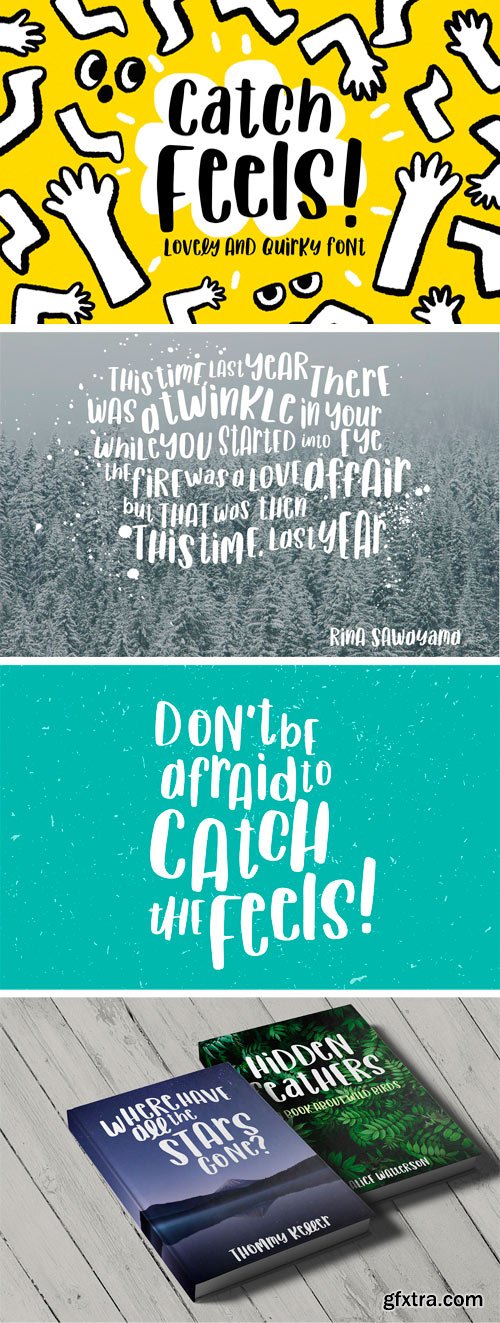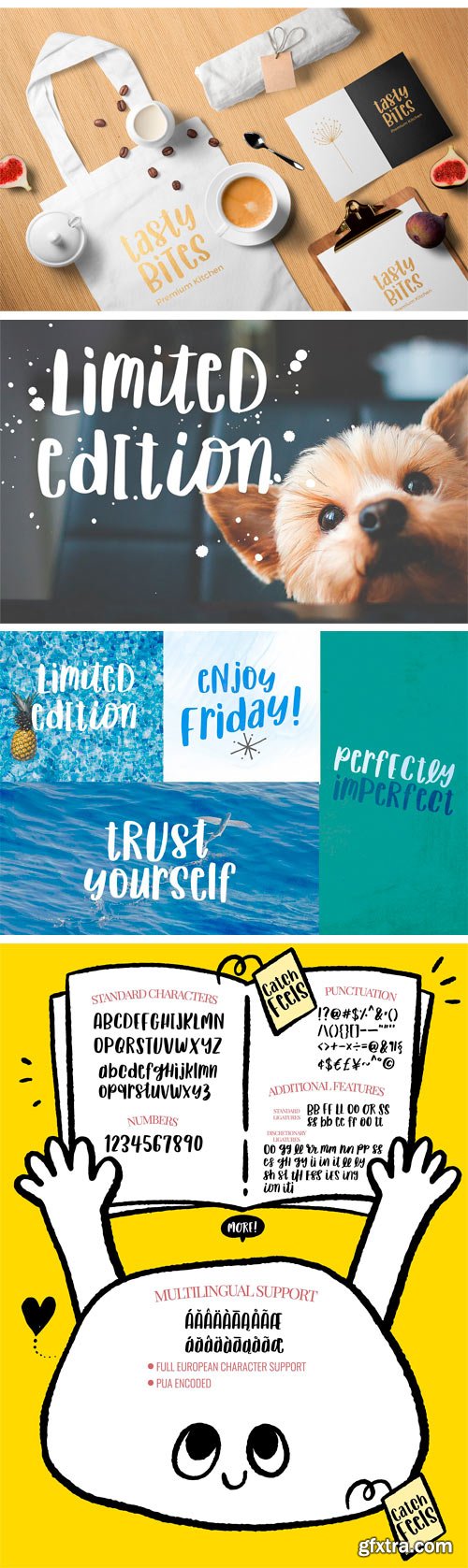
Catch Feels is lovingly hand-drawn quirky font with funny ligatures. Create a special, fun & stylish typography design like logo, branding, book cover, t-shirt, album covers and social media projects.